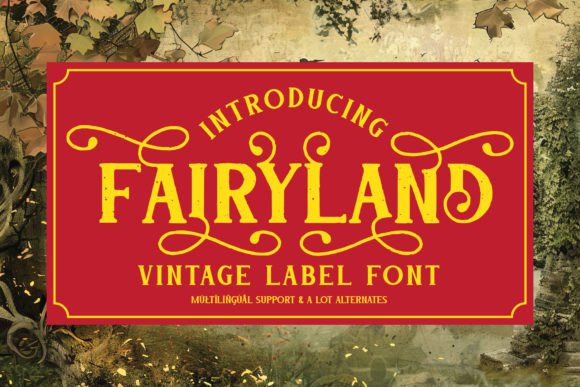
Fairyland Font: A Timeless Display Font for Stunning Designs
In the world of typography, fonts play a crucial role in conveying messages, expressing emotions, and creating visual identities. Among the numerous fonts available, Fairyland Font stands out as a lovely and timeless display font that can elevate your designs to new heights. In this article, we’ll explore the features, benefits, and uses of Fairyland Font, and why it’s an excellent choice for creating eye-catching logos, branding, and quotes.
What makes Fairyland Font special?
Fairyland Font is a unique and beautiful display font that boasts a distinctive touch. Every letter is carefully crafted to add a touch of magic to your designs. The font’s timeless quality ensures that it remains relevant and stylish, regardless of current trends. Whether you’re designing a logo, branding materials, or quotes, Fairyland Font is the perfect choice.
- Unique and beautiful touch: Each letter in Fairyland Font has a distinct character that sets it apart from other fonts.
- Timeless quality: The font’s classic design ensures that it remains stylish and relevant for years to come.
- Elegant and sophisticated: Fairyland Font exudes elegance and sophistication, making it perfect for high-end branding and designs.
Uses of Fairyland Font
Fairyland Font is a versatile display font that can be used in various design projects. Here are some of the most popular uses:
- Logo design: Create stunning logos that make a lasting impression with Fairyland Font.
- Branding: Use Fairyland Font to create a consistent visual identity for your brand.
- Quotes and posters: Add a touch of elegance and sophistication to your quotes and posters with Fairyland Font.
- Packaging design: Use Fairyland Font to create eye-catching packaging designs that stand out on store shelves.
Benefits of Using Fairyland Font
Using Fairyland Font in your designs offers numerous benefits. Here are some of the most significant advantages:
- Instant recognition: Fairyland Font’s unique and beautiful touch ensures that your designs get noticed.
- Emotional connection: The font’s elegant and sophisticated design helps create an emotional connection with your audience.
- Versatility: Fairyland Font can be used in various design projects, from logos to posters.
- Time-saving: With Fairyland Font, you can create stunning designs quickly and efficiently.
Tips for Using Fairyland Font
To get the most out of Fairyland Font, here are some tips to keep in mind:
- Use it sparingly: Fairyland Font is a display font, so use it sparingly to avoid overwhelming your design.
- Pair it with other fonts: Experiment with pairing Fairyland Font with other fonts to create a unique visual identity.
- Adjust font size: Adjust the font size to create visual hierarchy and emphasize important information.
- Experiment with colors: Try out different colors to find the perfect match for your design.
In conclusion, Fairyland Font is a lovely and timeless display font that can elevate your designs to new heights. Its unique and beautiful touch, combined with its elegant and sophisticated design, makes it perfect for creating eye-catching logos, branding, and quotes. With its versatility, benefits, and ease of use, Fairyland Font is an excellent choice for designers and non-designers alike.